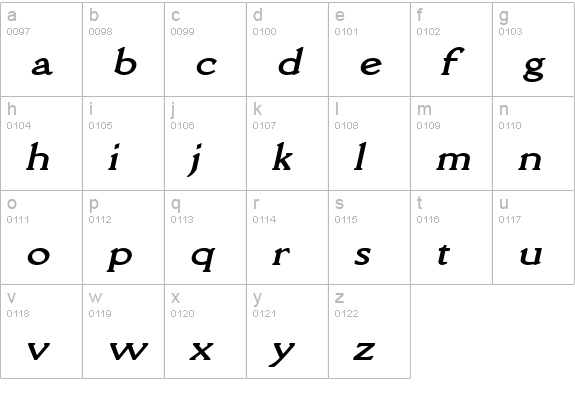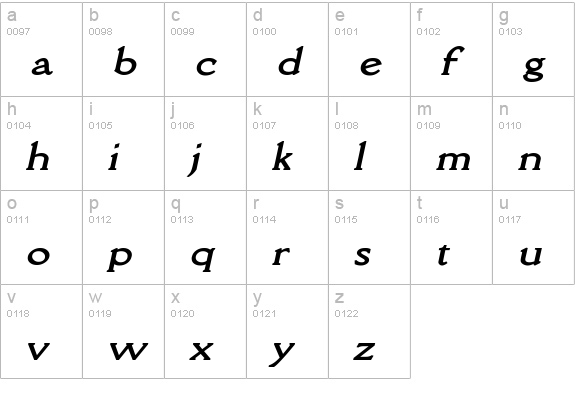
Rory Wide BoldItalic is a distinctive, extended-width variant in the Rory typeface family \xE2\x80\x94 well suited to design and typography projects.
Introducing Rory Wide BoldItalic font - a versatile and stylish typeface that exudes elegance and sophistication. With its bold yet graceful appearance, this font is perfect for creating eye-catching designs that demand attention. The unique combination of wide letterforms and italic styling gives Rory Wide BoldItalic a distinctive and modern look that is sure to make your projects stand out. Best of all, Rory Wide BoldItalic font is available for free download at FontsMarket.com. Whether you're designing a poster, logo, or any other creative project, this font is sure to elevate your work to the next level. Don't miss out on the opportunity to add Rory Wide BoldItalic to your font collection today!